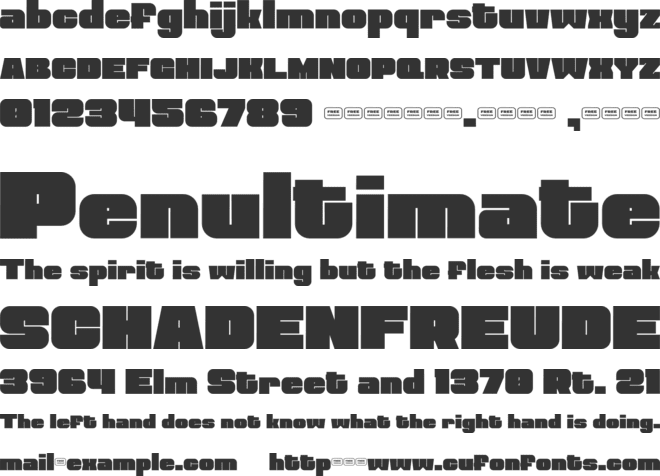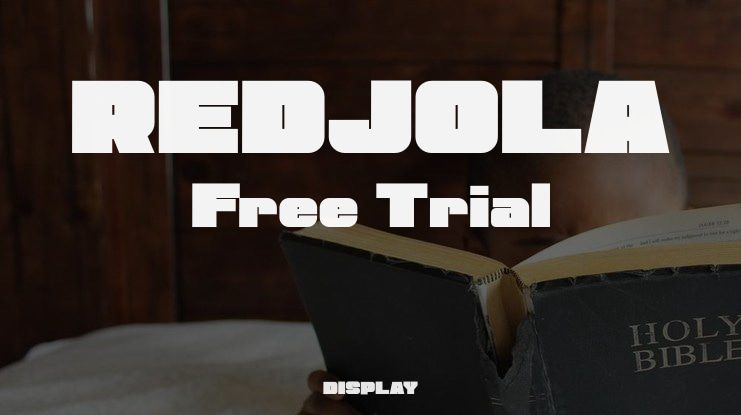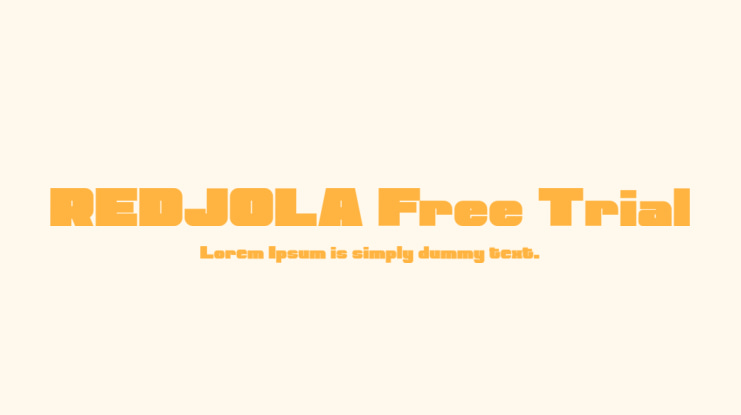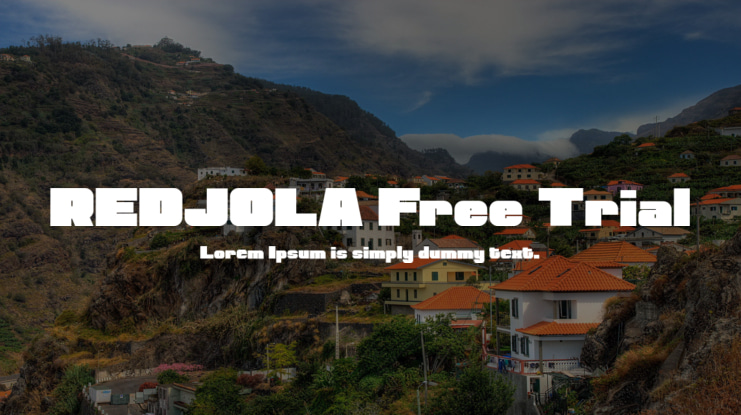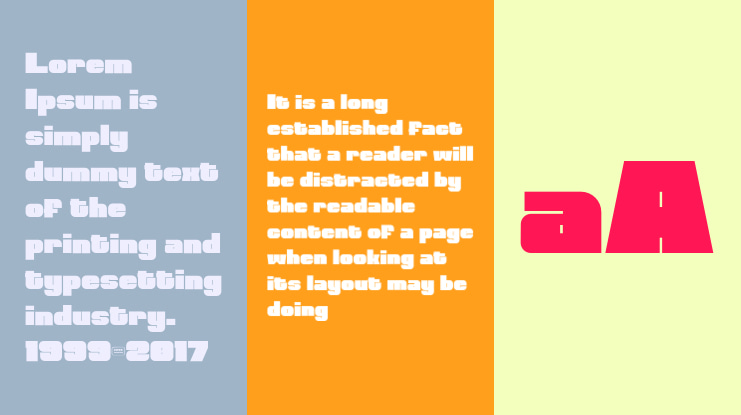
REDJOLA Free Trial Font
Introducing "Redjola" - a captivating and confident big black sans font that demands attention!
Featuring bold and powerful letterforms, "Redjola" is designed to make a lasting impact on any design project. Each character is meticulously crafted to strike the perfect balance between boldness and readability, making it the ideal choice for impactful headlines, eye-catching posters, contemporary branding, and much more.
Unleash the versatility of "Redjola" as it effortlessly enhances your designs. Whether you're creating urban graphics, edgy logos, minimalist layouts, or attention-grabbing packaging, this font will captivate your audience with its striking and impactful style.
Step into the limelight with "Redjola" and let your designs radiate confidence and boldness!